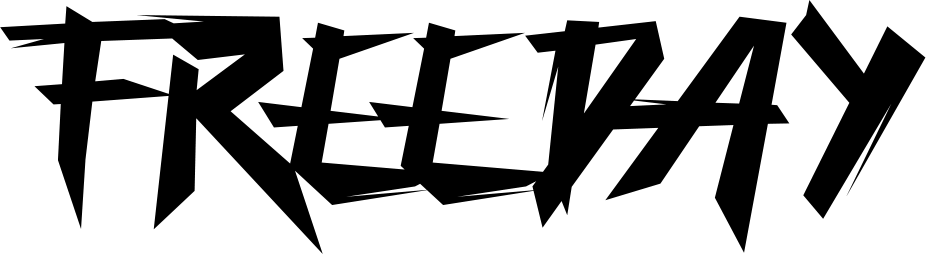
Freeday Font
Freeday is a sharp horror font. This font creates a scary and intimidating vibe with sharp and bold style characters and this feature can be used for varieties of projects like headings, book titles, retro designs, scary…
Freeday is a sharp horror font. This font creates a scary and intimidating vibe with sharp and bold style characters and this feature can be used for varieties of projects like headings, book titles, retro designs, scary movies, etc. This font only offers you the uppercase of the alphabet and there are no numbers in it either.